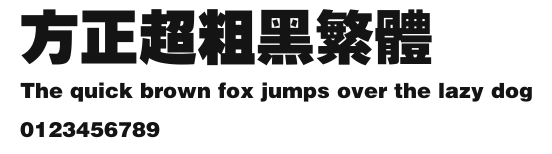
方正超粗黑繁体 Preview
• Font Name: 方正超粗黑繁体
• Full Font Name: 方正超粗黑繁体
About 方正超粗黑繁体.ttf
方正超粗黑繁体.ttf is a modern, elegant sans-serif font designed for ultimate readability and visual harmony. Perfect for branding, headlines, web design, and print materials.